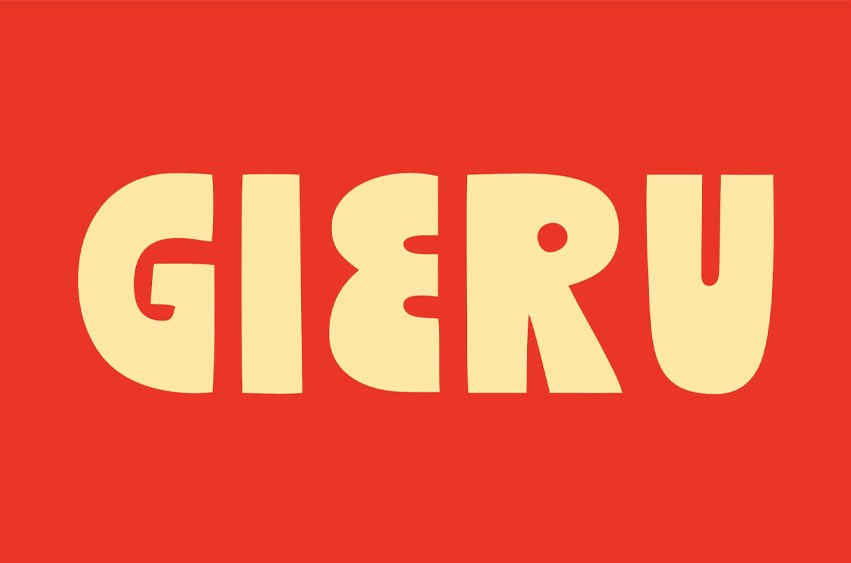
Gieru Font is a bold and expressive display font inspired by retro cartoons and vintage poster aesthetics.
Its chunky letterforms, soft curves, and quirky details create a playful yet powerful visual impact. Designed to stand out. Font files are provided in OTF format.